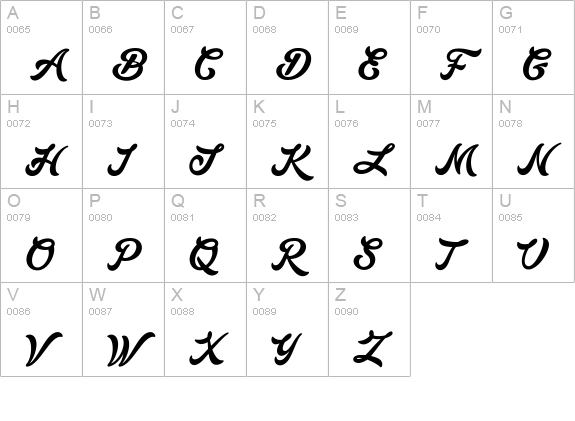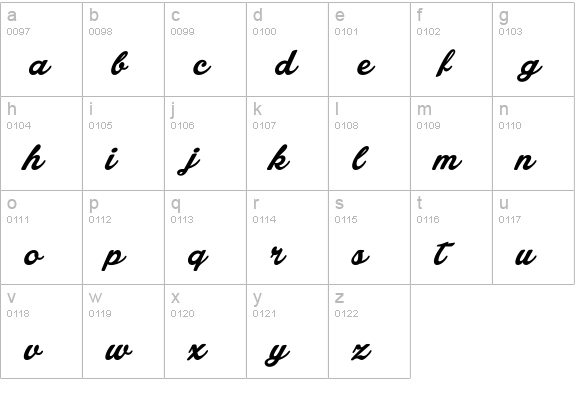
Lakesight Personal Use Only Font Details
Lakesight Personal Use Only is a free for personal use font in the Script > Handwritten category. It has been downloaded 87 times and is available for Windows, Mac and Linux.
Lakesight Personal Use Only font is a stunning and versatile typeface that embodies elegance and modernity. This font is perfect for adding a touch of sophistication to any personal project or creative endeavor. With its sleek, slender letterforms and balanced proportions, Lakesight Personal Use Only font exudes a sense of refinement and style. What sets this font apart is not only its aesthetic appeal but also the fact that it is available for free download exclusively at FontsMarket.com. Yes, you read that right – Lakesight Personal Use Only font is freely available for all to enjoy and utilize in their personal projects. Whether you're designing invitations, creating stunning graphics, or simply adding a unique touch to your personal correspondence, this font will elevate your work to new heights. Lakesight Personal Use Only font features a wide range of characters, including uppercase letters, lowercase letters, numerals, and punctuation marks. Its clean and legible design ensures that every character is easily readable, making it perfect for both print and digital applications. Whether you're a graphic designer, a creative professional, or simply someone who appreciates the beauty of typography, Lakesight Personal Use Only font is a must-have addition to your font collection. Its versatility and timeless appeal make it suitable for a wide range of projects, from branding and logo design to social media graphics and website headers. So why wait? Enhance your designs with the captivating charm of Lakesight Personal Use Only font. Download it for free today at FontsMarket.com and unlock a world of creative possibilities.